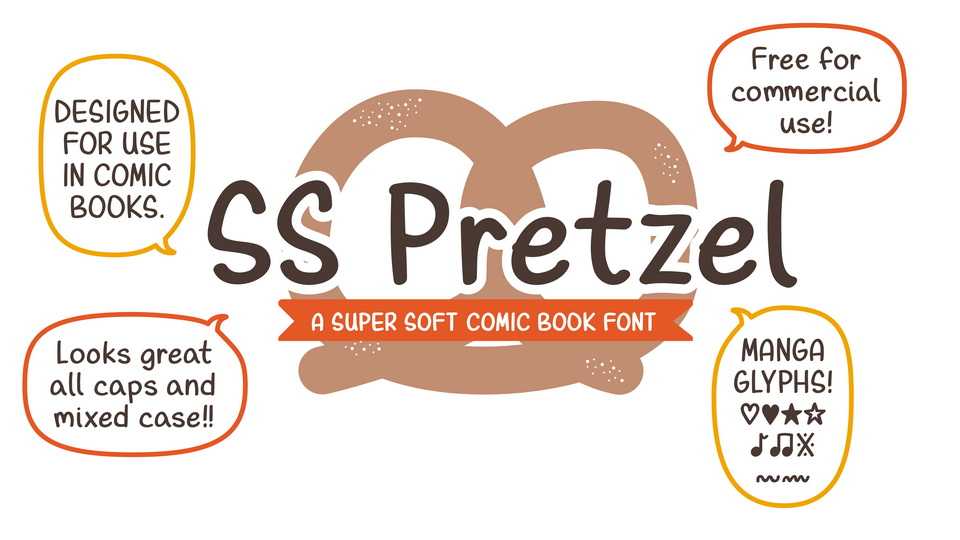
Download Pretzel font, a super soft dialogue typeface with a four styles and a wide range of glyphs designed for the editorial needs of comic book lettering.